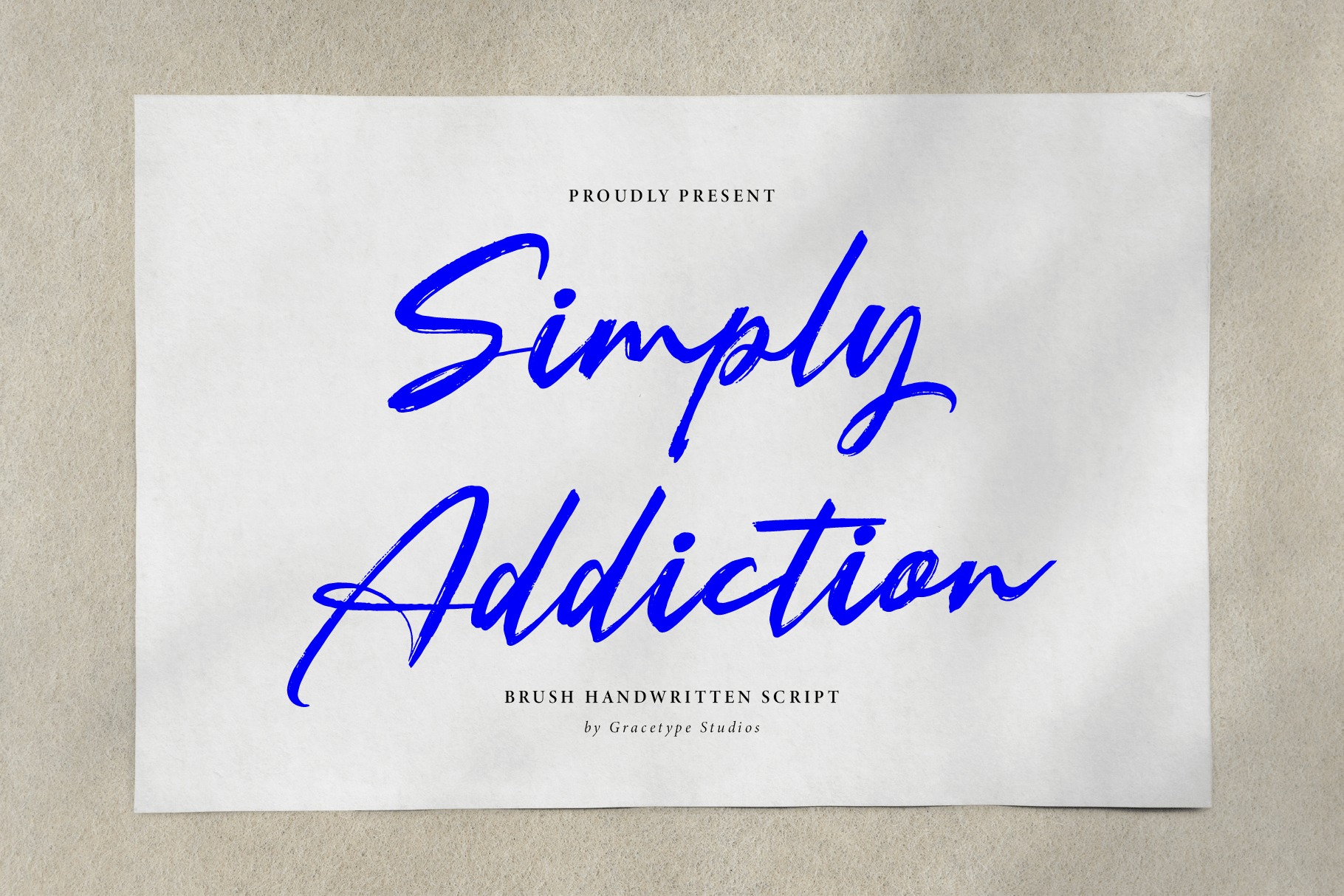
Simply Addiction – Brush Script Font
Simply Addiction – Brush Script Font is a flexible and reliable font created to fit multiple design needs, from branding and packaging to social media and editorial layouts. Simply Addiction | Brush Handwritten Script, from Gracetypestudio, suitable for any projects such as: logos, branding projects, homeware designs, product packaging, mugs, quotes, posters, shopping bags, t-shirts, book covers, name card, invitation cards, greeting cards, label, photography, watermark, special events, and all your other lovely projects that need a beautiful script taste.
Standard glyphs
Alternate and Ligature
Fonts include multilingual support